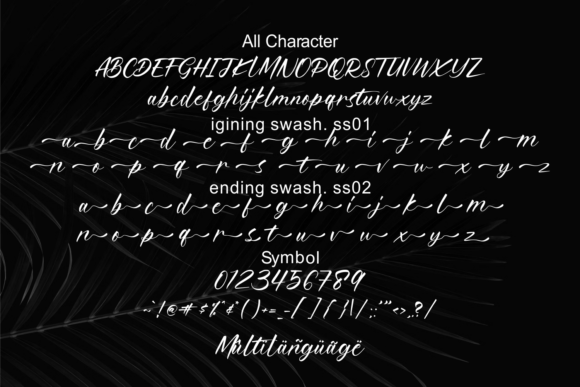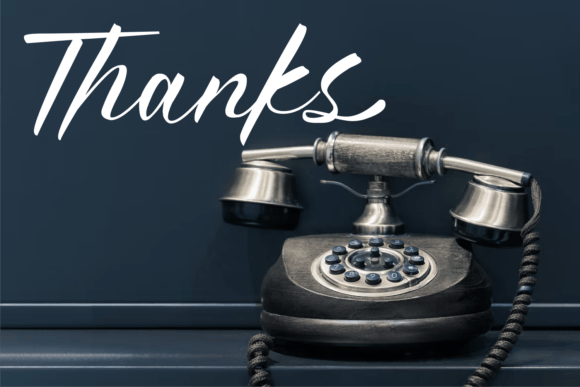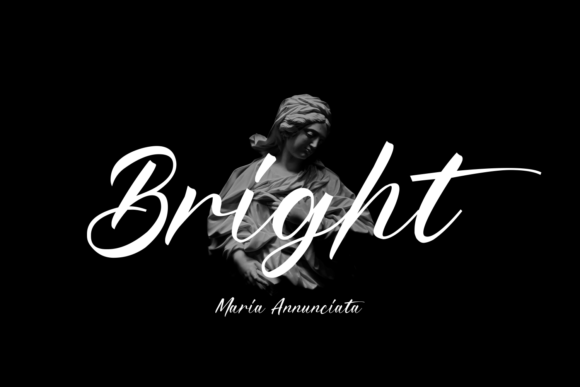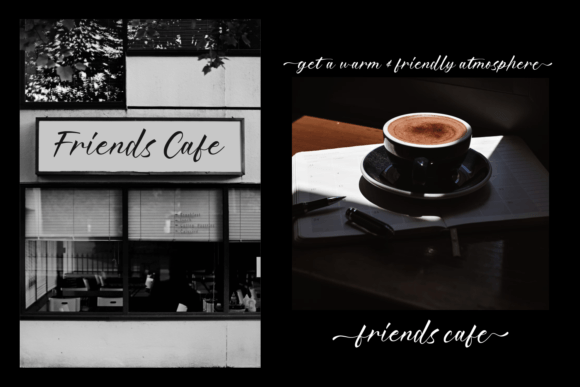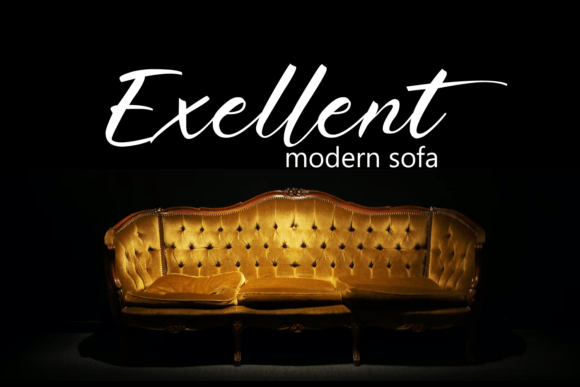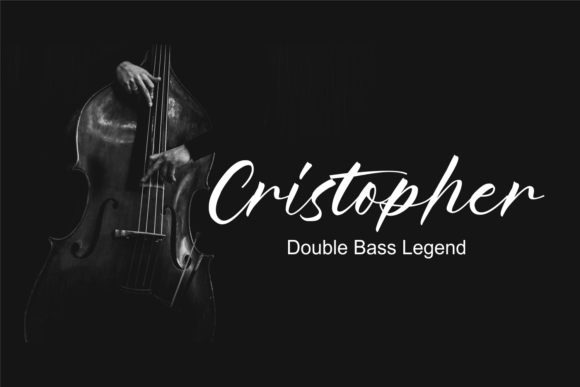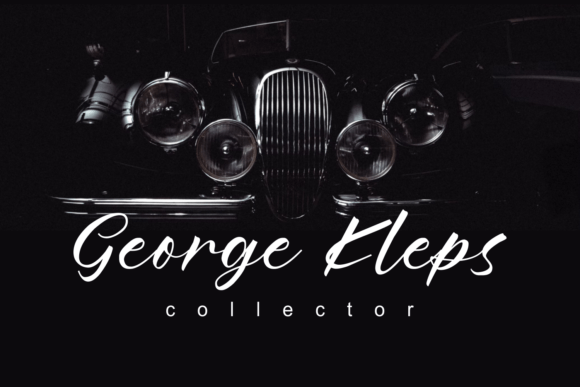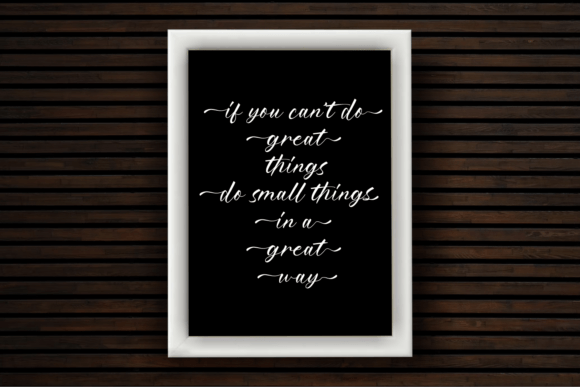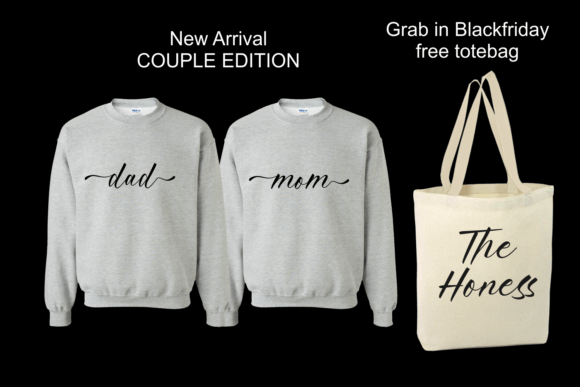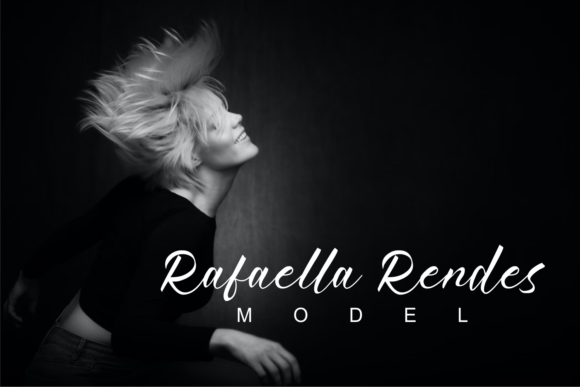
Honess Font
The Honess Font Download is a luxurious handwritten script font designed to bring sophistication and charm to your projects. With its thick strokes and classic handwritten style, it gives your work a polished, timeless feel. Whether you’re crafting invitations, branding materials, or artistic designs, Honess ensures your creations stand out with elegance.
A Luxurious Script with Classic Appeal
The Honess script font blends bold handwritten lines with refined balance. As a result, it feels luxurious and stylish. Furthermore, it adapts seamlessly to both small stationery projects and large displays, which makes it a versatile choice for designers.
Handwritten fonts always add a personal and romantic touch. The Honess Font is perfect for wedding invitations, thank you cards, birthday greetings, and seasonal designs. Because of its thick and elegant handwritten strokes, every card looks sophisticated and memorable. In addition, it helps your stationery leave a lasting impression.
Branding and Logo Design with Honess Font
Typography defines how a brand is seen. The Honess handwritten font is excellent for boutique logos, product packaging, and promotional materials. Its luxurious handwritten flow gives businesses a professional yet creative personality. Therefore, it is particularly effective for fashion, lifestyle, and artistic industries.
Posters, Titles, and Artistic Layouts
The Honess Font Download also performs beautifully in posters, magazines, banners, and book covers. It holds its clarity across different sizes while adding a bold handwritten charm. Consequently, it is a dependable option for designers who need both creativity and readability.
In today’s digital age, fonts must be visually engaging and adaptable. The Honess typeface integrates easily into Instagram graphics, Pinterest boards, YouTube thumbnails, and blogs. Because of its stylish handwritten form, it ensures digital projects look modern, elegant, and professional.
Why Designers Choose Honess Typeface
Designers enjoy fonts that combine luxury with usability. The Honess handwritten script keeps its bold charm while staying easy to read. This makes it reliable for both professionals and hobbyists. Moreover, its timeless look ensures it will remain trendy in future creative work.